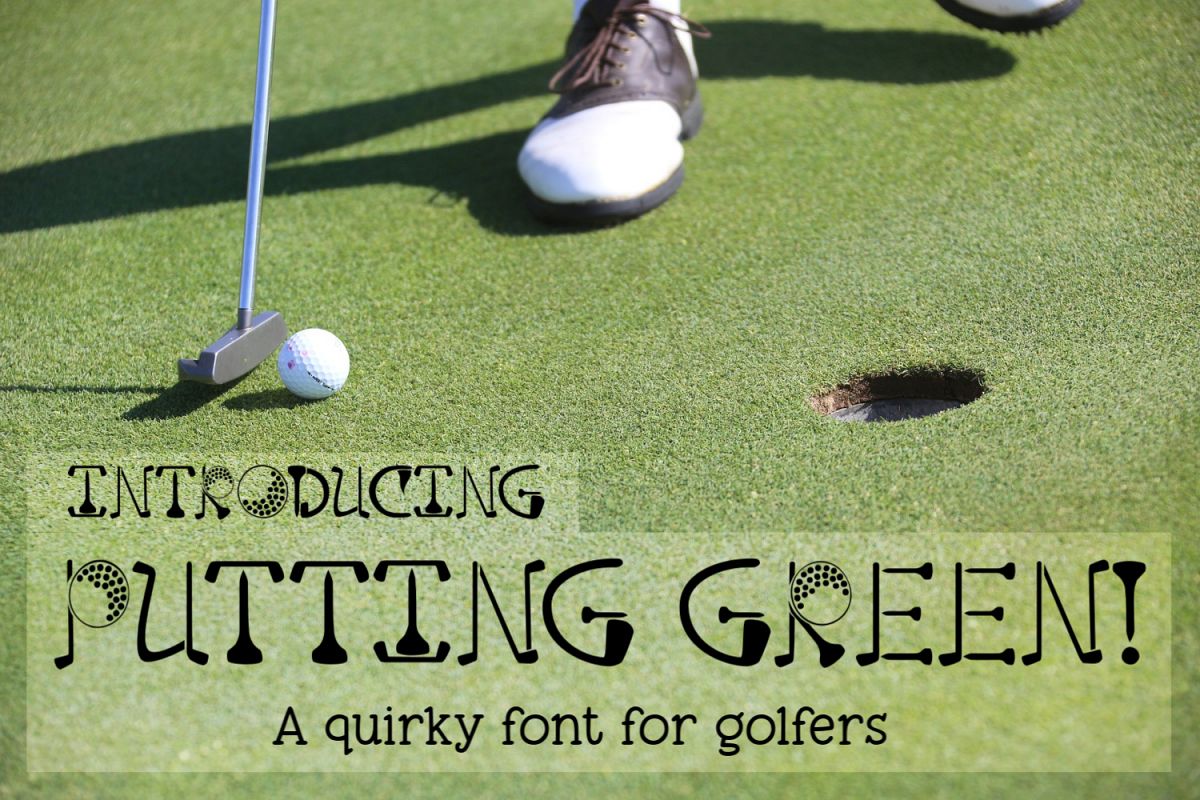
Putting Green - A Quirky Font for Golfers
I had so much fun making my tool font that when someone asked me about a font for golfers I just couldn't resist! This quirky font will make the perfect gift for the golfer in your life. Also have fun making headlines for golf clubs and teams!